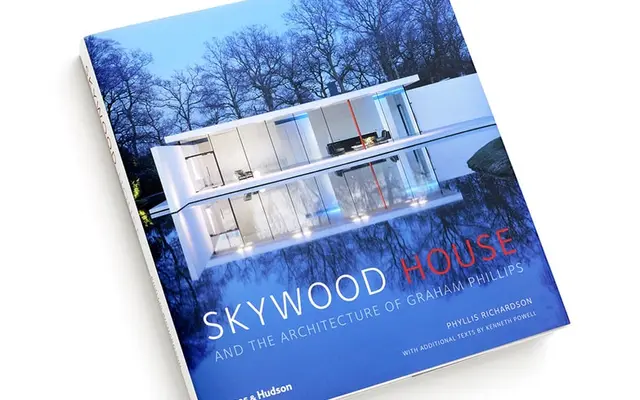
Foundry Sterling
The Foundry Types · Freda Sack, Stuart de Rozario · 2002
A British humanist sans in seven weights, rooted in the Gill and Johnston tradition and developed from corporate typeface commissions for Railtrack and British Gas around 1999.
Developed by Freda Sack and Stuart de Rozario from earlier corporate work, Foundry Sterling draws on the open, classical proportions of early 20th-century British humanist sans designs such as Gill, Granby and Johnston. The seven-weight range runs from Light to Extra Bold, with a single italic at the Book weight, and the family is designed to hold up equally in text, identity and signage contexts. Its clean colour in text setting and unfussy stroke quality make it a steady choice for editorial and wayfinding work where restraint is the priority.
Foundry Sterling draws on the humanist sans tradition of Gill, Granby and Johnston, with open letterforms and classical proportions that place it firmly in the early 20th-century British humanist lineage.